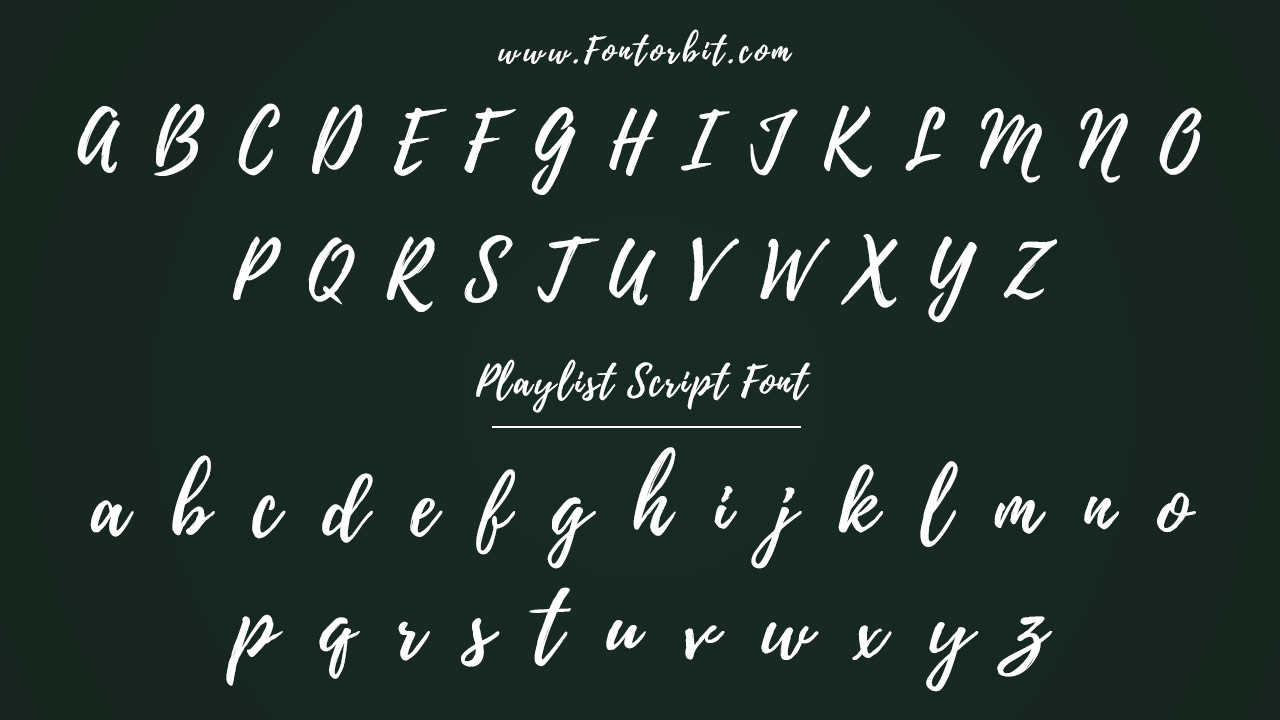
The Playlist Script Font is a beautifully hand-drawn script font designed by Artimasa Studio, released on January 15, 2016. It offers a charming blend of organic brush strokes and a modern cursive style, making it perfect for various design projects.
- The Playlist Script Font comes in 3 styles: Script, Caps, and Ornament.
- Ideal for printed materials, product packaging, posters, and more.
| Style | Brush, Script |
| Designer | Artimasa Studio |
Font Family Includes:
The Playlist Script Font comes with a range of styles for different design needs:
- Playlist Script Regular
- Playlist Script Condensed
- Playlist Script Condensed Italic
- Playlist Script Light
- Playlist Script Semibold
- Playlist Script Bold
- Playlist Caps (uppercase only)
- Playlist Ornament (decorative elements)
The Playlist Script Font can elevate your designs in a variety of creative projects:
- Wedding Invitations
- Greeting Cards
- Illustrations and Quotes
- T-shirt Designs
- Product Packaging
- Printed Materials
- Logos and Branding
- Posters and Flyers
- Advertising Material
The Playlist Script Font by Artimasa Studio is perfect for designers seeking a handwritten cursive style with a brush effect. With 3 different styles: Script, Caps, and Ornament, it provides versatile options for various design projects.
Playlist Script Font is a handwritten cursive font with a brush style.
Yes, the Playlist Script Font is perfect for logo designs, especially when paired with sans serif fonts for contrast.
Playlist Script Font includes 3 styles: Script, Caps, and Ornament.
Yes, the font is ideal for product packaging, adding a handwritten, personalized touch.